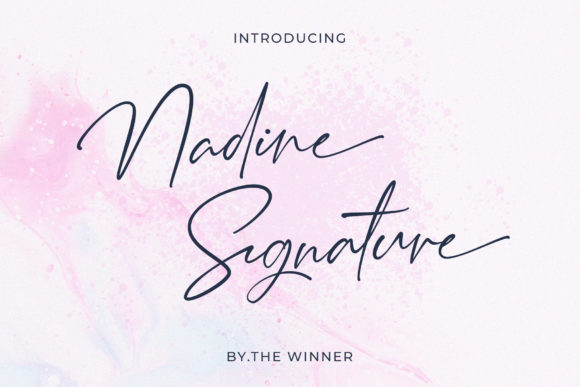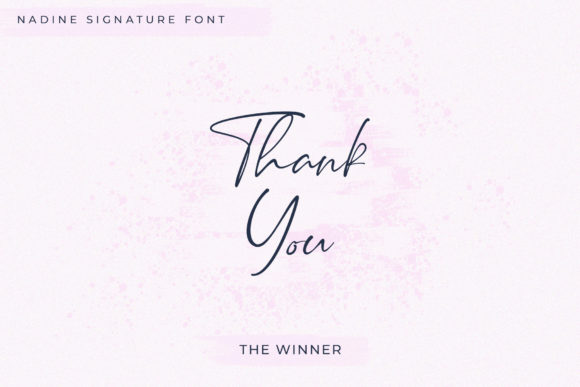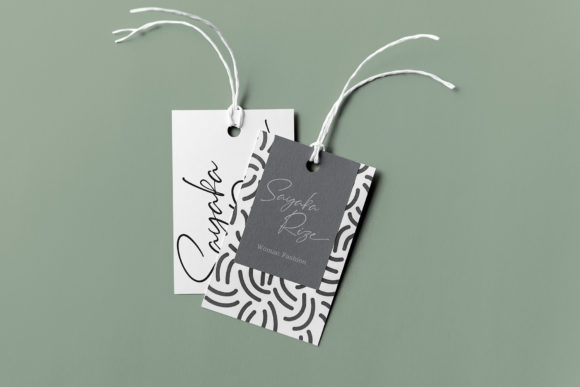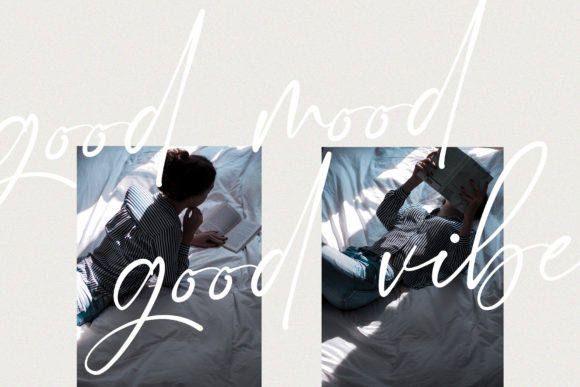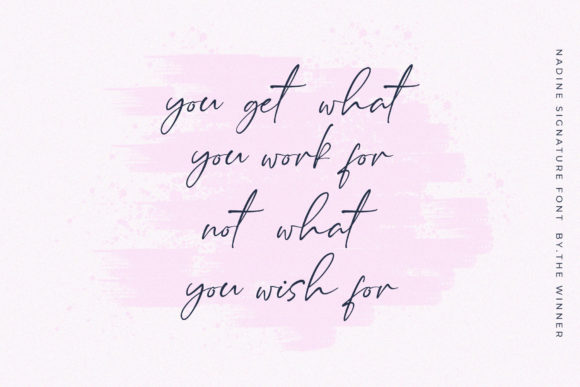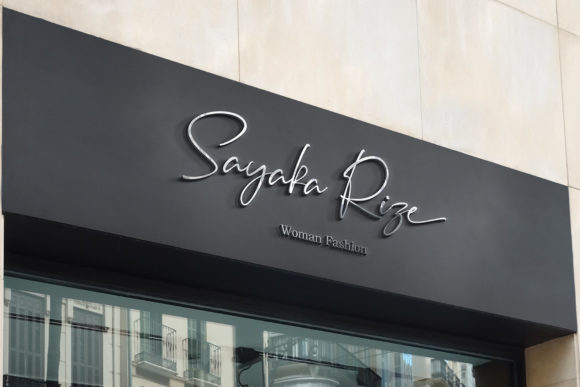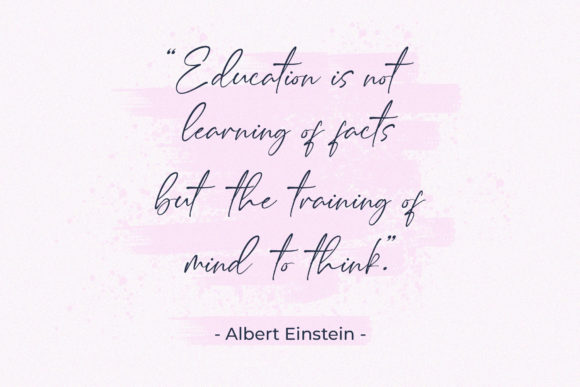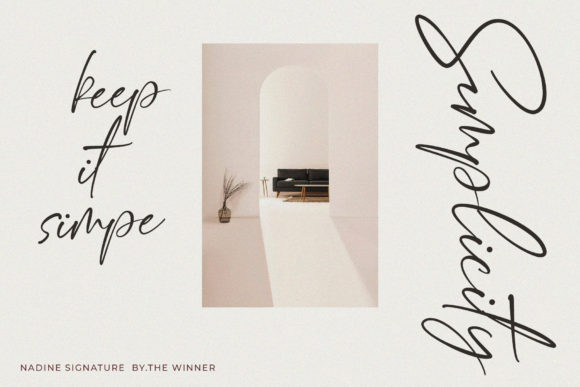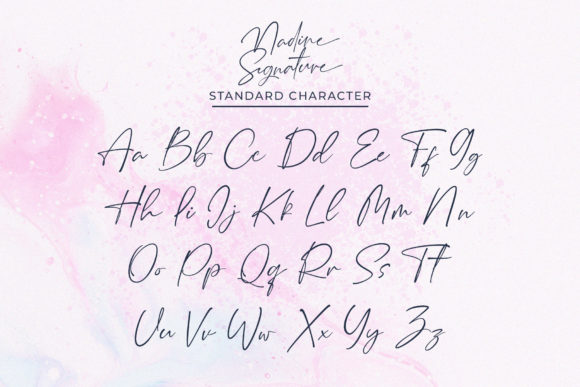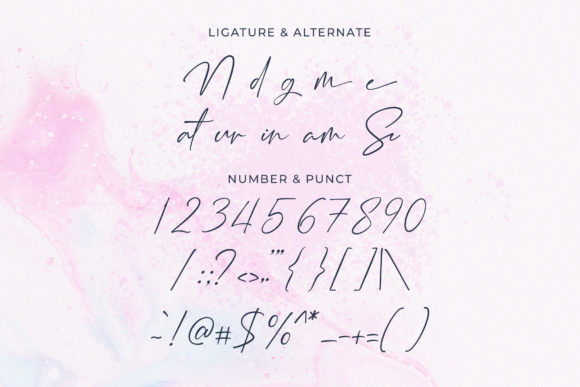
Nadine Signature Font
About Nadine Signature Font
Nadine Signature is a stunning handwritten font that exudes elegance and sophistication. With its delicate and refined style, this font is perfect for adding a touch of class to your creative projects.
The carefully crafted characters of Nadine Signature create a sense of beauty and grace, making it ideal for logos, branding, invitations, and other designs that require a luxurious and personalized touch. Whether you’re designing wedding stationery, elegant packaging, or stylish merchandise, this font will add a sense of refinement and sophistication.
The flowing and balanced nature of Nadine Signature allows it to effortlessly enhance any design. Its versatile style makes it suitable for a variety of projects, from fashion and beauty to lifestyle and luxury. With this font, you can create stunning and captivating visuals that leave a lasting impression on your audience.
Nadine Signature’s adaptability extends beyond its elegant appearance. It can be used in both formal and casual contexts, providing versatility and flexibility for your designs. Whether you’re creating romantic wedding invitations, feminine branding materials, or chic social media graphics, this font will bring an air of sophistication to your work.
Furthermore, Nadine Signature’s legibility and readability make it suitable for various applications. It maintains its elegance and clarity even at smaller sizes, making it ideal for both print and digital mediums. From signage and packaging to website headers and social media posts, this font will shine in any format.
Embrace the delicate and elegant charm of Nadine Signature and let it elevate your creative projects. With its refined style and graceful appeal, this font will bring a touch of sophistication to each of your designs, leaving a lasting impression on your audience.